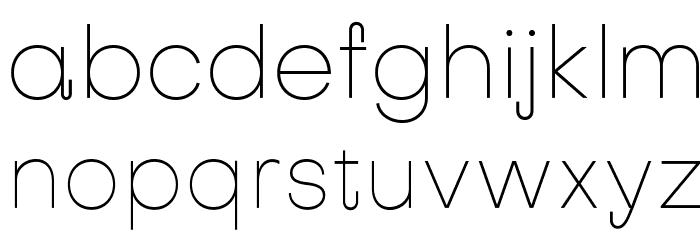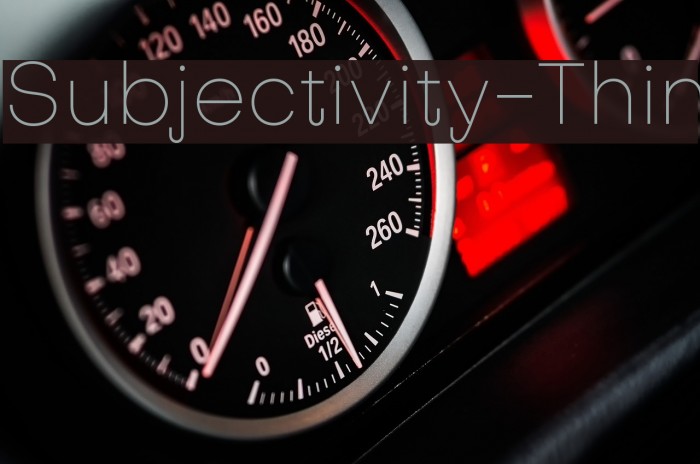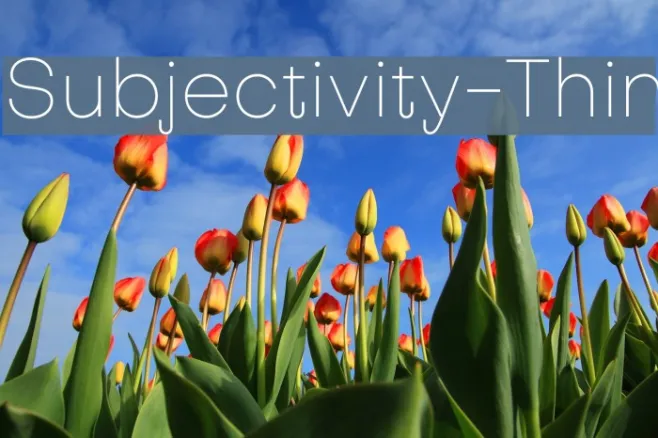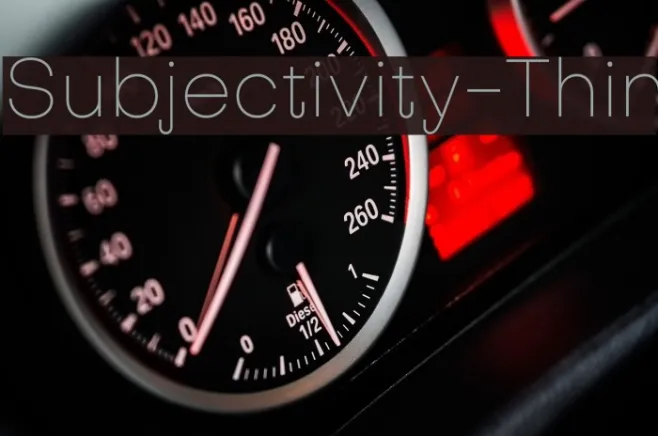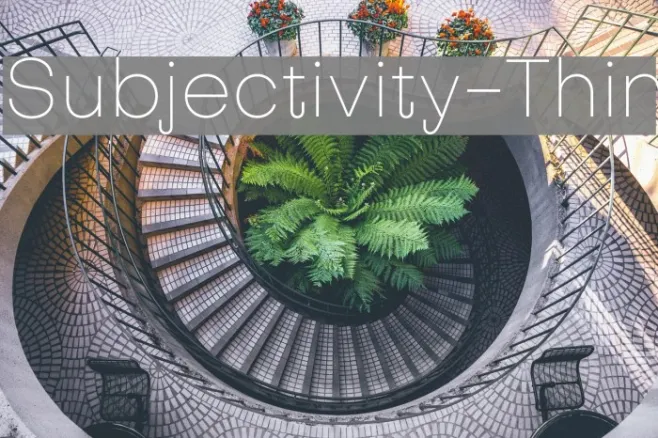
Subjectivity-Thin Font
This font features a clean and minimalist design with a thin stroke weight, giving it a modern and elegant appearance. The characters are evenly spaced, contributing to a balanced and airy feel. The uppercase and lowercase letters maintain a consistent style, with smooth curves and straight lines that enhance readability. The numerals and special characters are designed to match the overall aesthetic, making this font versatile for various applications. Its simplicity and clarity make it suitable for both digital and print media.
A modern, thin-stroke font with a clean and minimalist design.
- Proposed Projects: Ideal for branding, editorial design, web design, and minimalist posters.